Are you on the hunt for playful and friendly sans serif fonts with rounded edges? Designing with type that evokes warmth and joy can elevate your projects. Whether you’re crafting a playful invitation or an engaging brand identity, the right font can make all the difference.
This collection of fonts will meet your needs perfectly, combining charm and versatility. Playful and friendly sans serif fonts with rounded edges are ideal for capturing attention and creating a welcoming atmosphere. Each selection is designed to enhance your designs and resonate with your audience, ensuring a delightful experience.
Get ready to explore ten delightful options that will inspire your creativity. You’ll discover fonts that bring a sense of fun and approachability to your designs. Each one has its unique personality, ready to make your projects shine with joy and positivity.
Muffin Font
For eye-catching posters and vibrant social media graphics, this font shines bright. Its chunky letters create a bold statement, making your designs stand out effortlessly. Additionally, it’s great for branding projects that require a fun and approachable feel. Designers and small business owners will find this font especially beneficial. Notably, it appeals to those who appreciate a modern aesthetic while wanting to convey warmth and friendliness in their work. Therefore, it’s ideal for anyone looking to elevate their visual communication. When using MUFFIN, remember that its rounded edges lend themselves well to both cutting and printing. As a result, you can easily incorporate it into various crafts, such as greeting cards or custom labels. The simplicity of application makes it a delight to work with. Moreover, accessing this font for free as a subscriber saves you both time and money. Consequently, you can focus on your creative projects without worrying about budget constraints. This convenience allows for more experimentation and fun in your design process.
Best for: children’s book covers and designs
Banana Cupcake Font
A cheerful greeting card would shine with the lively flair of the Banana Cupcake Font. Additionally, it’s fantastic for creating signage or playful posters that need a splash of personality. Therefore, incorporating this font can truly elevate your designs, making them stand out. Children’s brands and event planners will benefit immensely from this font’s whimsical character. It appeals particularly to those targeting families or aiming to create a joyful atmosphere. Consequently, using this font can enhance brand recognition and engagement. When cutting or using this font, ensure your software supports OTF or TTF formats for the best results. However, if you’re looking to use it on the web, the bonus WOFF format offers added convenience. This flexibility allows for seamless integration across various platforms. Notably, the availability of multiple file formats saves both time and effort when designing. You can easily switch between formats depending on your project needs. As a result, this font not only adds creativity but also enhances your workflow significantly.
Best for: children’s party invitations
Marshmallow Font
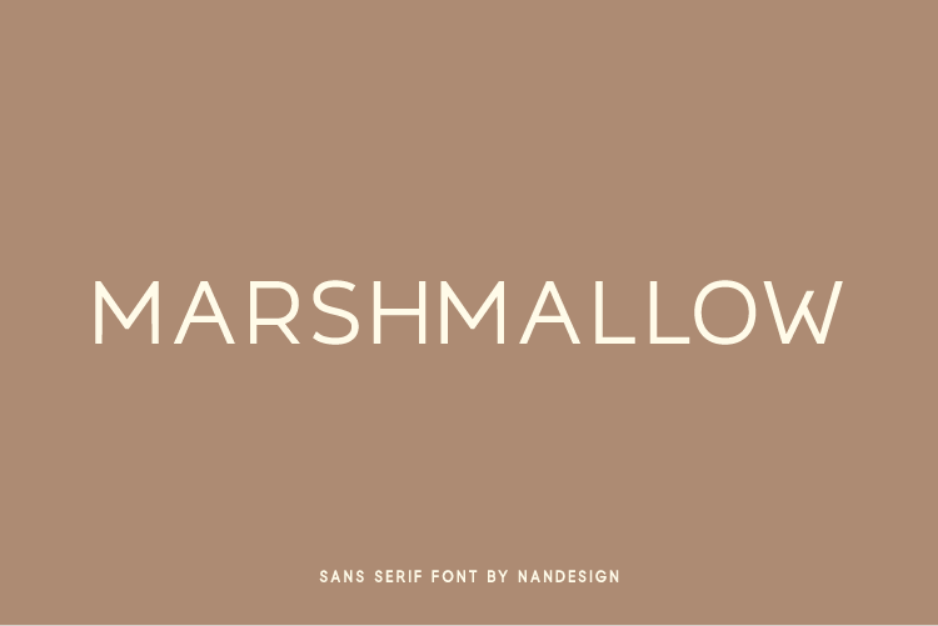
For vibrant wedding invitations, the Marshmallow Font shines beautifully. Additionally, it works wonderfully for playful headers on websites or social media. You can also use it in crafting delightful greeting cards. As a result, any project using this font will stand out with its friendly charm. Creative individuals, such as wedding planners and graphic designers, will benefit greatly from this font. Moreover, crafters who love adding a whimsical touch to their projects will find it incredibly useful. Consequently, anyone looking to elevate their designs will appreciate its versatility. While using the font is straightforward, ensure you have the right software for installation. Additionally, try out various sizes and spacing to find the look that suits your project best. Therefore, experimenting can lead to unique results that truly reflect your style. One of the best features is its extensive character set, which includes numbers and symbols. This versatility allows for cohesive branding across different materials. Furthermore, it saves time, as you won’t need to source multiple fonts for similar projects.
Best for: children’s book covers and designs.
Bird House Font
Looking to create playful greeting cards or charming home decor? Bird House Font adds a whimsical touch to all your projects. Use it for personalized invitations or unique signage to capture attention and delight your audience. Crafters and small business owners will benefit most from this font. Moreover, it appeals to those who appreciate a friendly, handwritten style. Whether it’s for branding or crafting, it delivers a warm, inviting aesthetic. For best results, use a cutting machine to ensure clean lines and smooth application. Additionally, consider adjusting the size for different projects, as the font scales beautifully without losing its charm. One key advantage is its versatility, allowing you to save time on design. Therefore, you can focus on bringing your ideas to life without spending hours creating custom lettering. Enjoy the ease of using Bird House Font in various applications!
Best for: children’s book covers and designs
Perfect Lemonade Font
Craft delightful greeting cards with this cheerful font, as it adds a playful touch to your typography. Additionally, it’s ideal for planner pages, sticker packs, or even digital posts. Each project will radiate warmth and creativity, making your designs truly stand out. Artists, crafters, and anyone who enjoys personalizing their work will benefit from this font. Moreover, it’s perfect for those who appreciate a friendly, handwritten style that resonates with audiences. Therefore, it caters to both casual creators and seasoned professionals alike. When using this font, consider pairing it with simple graphics for a balanced look. As a result, the clean lines and bubbly strokes will shine through without overwhelming your designs. It’s effortless to integrate into various projects. One key benefit is its versatility across different mediums, saving you time on searching for alternatives. Consequently, you can focus more on creating and less on font selection. This ease of use makes it a fantastic addition to your design toolkit.
Best for: children’s book covers and designs
Classic Lemonade Font
Craft delightful children’s books or vibrant summer event invitations with this charming font. Additionally, it shines in playful crafting projects, making your designs pop with joy and personality. Young families and creative educators will benefit the most from this cheerful typeface. Consequently, it appeals to anyone looking to add a friendly touch to their designs. For easy application, this font is compatible with most design software, ensuring a smooth creative process. Moreover, its hand-drawn style requires no complex adjustments, allowing for quick use. One key feature is its versatility, saving both time and money on design costs. Therefore, you can achieve professional-looking results without hiring a designer, making it a budget-friendly option.
Best for: children’s book covers
Bright Darling Duo Font
Bright Darling Duo Font is fantastic for creating wedding invitations, greeting cards, and branding materials. Its combination of a chic sans-serif and an elegant script font makes it ideal for projects that need a playful yet sophisticated touch. Consequently, your designs will stand out with a unique flair. Designers, crafters, and small business owners will benefit immensely from this font duo. Whether you’re looking to elevate a personal project or enhance your brand’s aesthetic, its versatility caters to various audiences. Moreover, anyone seeking a modern yet friendly vibe will find it particularly appealing. When using Bright Darling, consider pairing the sans-serif with the script for a cohesive look. However, if you want to emphasize specific text, feel free to mix and match. Additionally, adjusting the font sizes will help create visual hierarchy in your designs. One key time-saving feature is the font duo’s easy readability. As a result, you can create polished designs without extensive tweaking. Furthermore, this combination saves you the hassle of sourcing multiple fonts, streamlining your creative process.
Best for: children’s book covers and designs
Mango Dream Font
Mango Dream Font is ideal for creating playful branding materials, vibrant websites, and eye-catching marketing campaigns. As a result, it adds a friendly touch to any project, making your designs stand out with ease. Graphic designers, small business owners, and creative enthusiasts will find this font especially beneficial. Furthermore, its modern aesthetic appeals to a wide range of audiences, allowing for versatile use across various platforms. When using Mango Dream Font, simply install it on your design software for seamless integration. Additionally, its clear, rounded letters make it easy to read, ensuring your message comes across effectively. One of its key conveniences is the multilingual support, which saves time when reaching a broader audience. Consequently, you can focus more on creativity and less on language barriers in your designs.
Best for: children’s book covers
Garlic Shine Font
Garlic Shine Font is ideal for creating stunning event invitations, playful posters, or engaging social media graphics. Its unique blend of modern sans serif and handwritten script allows for versatile designs that capture attention and convey personality. Graphic designers, small business owners, and craft enthusiasts will find great value in this font duo. Additionally, those looking to elevate their branding or personal projects can benefit from its appealing aesthetic and functional versatility. For ease of use, both styles in this font duo are compatible with most design software. Therefore, you can quickly customize your projects without any technical hurdles, ensuring a smooth creative process. Moreover, the Garlic Shine Font comes at an affordable price, saving you both time and money. With its diverse applications, you can create high-quality designs without the need for multiple font purchases, streamlining your design toolkit.
Best for: children’s book covers
Butterfly Wildflower Font
Imagine creating charming mugs adorned with the Butterfly Wildflower Font. With its playful curves, this font trio shines on signs and bags, adding a whimsical touch. Moreover, it’s ideal for personalized gifts that truly stand out. Crafters, designers, and hobbyists will benefit the most from this delightful font set. Additionally, anyone looking to elevate their creative projects will find it incredibly useful. The combination of styles caters to various tastes and preferences. For a smooth crafting experience, consider using a Cricut machine for cutting. Transitioning between the bold and thin styles can enhance your designs. Therefore, having a script font in the mix offers even more versatility. One key feature is the included 25 butterfly EPS-SVG files. Consequently, you save time by having ready-made graphics at your fingertips. This added convenience allows for quicker project completion, making it easier to bring your ideas to life.
Best for: children’s book covers
Ready to Create?
In summary, the playful and friendly sans serif fonts with rounded edges featured in this roundup can elevate your designs. Whether you’re creating a cheerful invitation or a whimsical branding project, these fonts offer the perfect touch of warmth and approachability. Above all, they invite your audience to connect and engage with your work. As you explore these delightful options, what creative project will you embark on next? I hope you feel inspired to bring joy and fun to your designs. Remember, every letter you choose can spark happiness, so let your creativity shine and explore the possibilities!